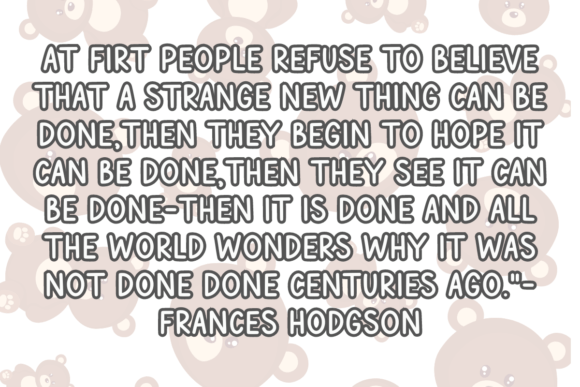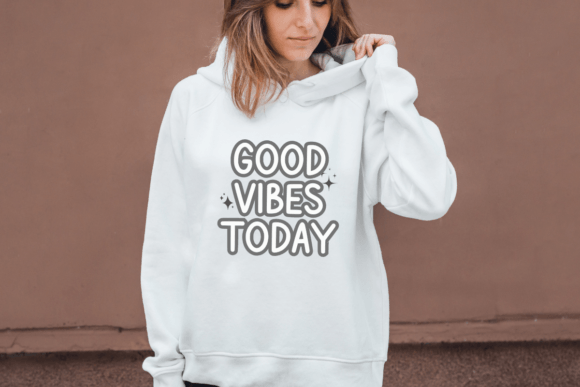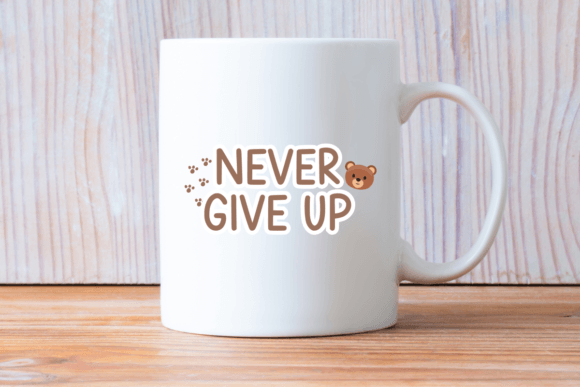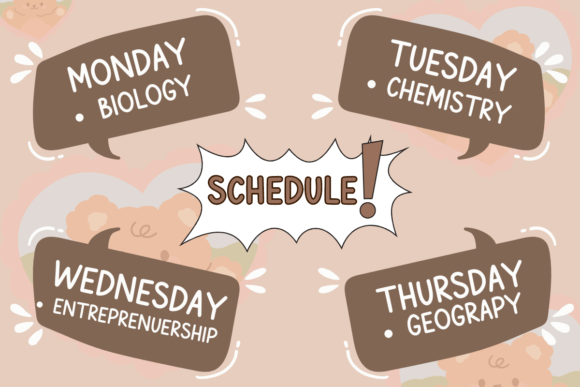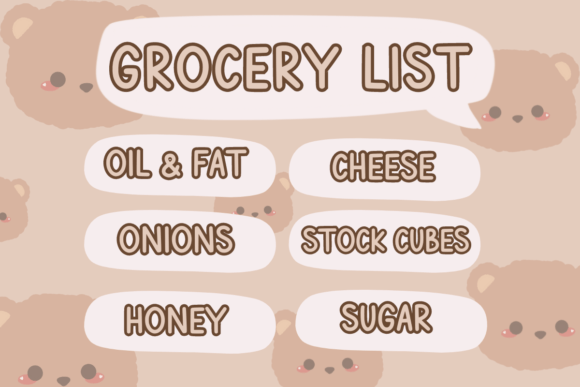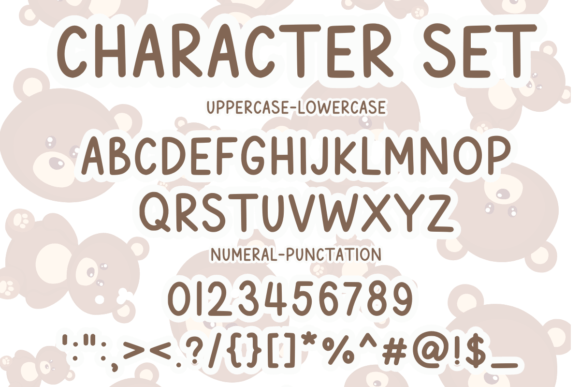
The Cuteness Factor: Why Cute Bear Font Should Be Your Next Design Obsession
I’ll never forget the time I was working on a project for a children’s party invitation. I had all the design elements ready – the colors, the graphics, the layout – but something was missing. The font I had chosen just wasn’t doing it for me. It was too formal, too boring. I needed something that would capture the playful spirit of the party. That’s when I stumbled upon Cute Bear Font. 🚀
As soon as I saw it, I knew I had found the one. The cute and adorable handwritten style, the fun and natural strokes, it was all just so perfect for the project. And let me tell you, it made all the difference. The invitation turned out amazing, and the client loved it. But what really got me excited was realizing that Cute Bear Font could be a game-changer for so many other projects too.
An Honest Review of Cute Bear Font
- ✅ The natural, handwritten feel that makes it perfect for projects that need a personal touch
- ✅ The fun and playful style that’s sure to bring a smile to anyone’s face
- ✅ The versatility – it can be used for everything from kids’ projects to more serious designs that need a bit of whimsy
- ✅ The ease of use, even for those who aren’t super tech-savvy
- ⚠️ Some of the letters may appear a bit cramped, so kerning might need to be adjusted for optimal readability
- ⚠️ Limited availability of certain special characters, but this can often be worked around with creative solutions
Exploring OpenType Features, Glyphs, and Stylistic Alternates
One of the best things about Cute Bear Font is its support for OpenType features. This means you can access a range of glyphs and stylistic alternates to really customize your text. For example, you might use:
- Ligatures for a more connected, handwritten feel
- Stylistic sets to change the look of certain letters or numbers
- Swashes or ornaments to add a bit of flair
Experimenting with these features can really help you get the most out of Cute Bear Font and make your designs stand out.
The Designer Inspiration Behind Cute Bear Font
While the true story behind Cute Bear Font’s creation is a mystery, it’s easy to imagine that it was designed by someone who loves all things cute and playful. Perhaps the designer was inspired by childhood memories of cuddly teddy bears, or by the joy of creating art that brings a smile to people’s faces. Whatever the inspiration, it’s clear that Cute Bear Font was created with love and a passion for fun design.
A: Absolutely! Despite its playful nature, Cute Bear Font is a high-quality font that can be used in professional projects, especially those that require a bit of whimsy or personality.